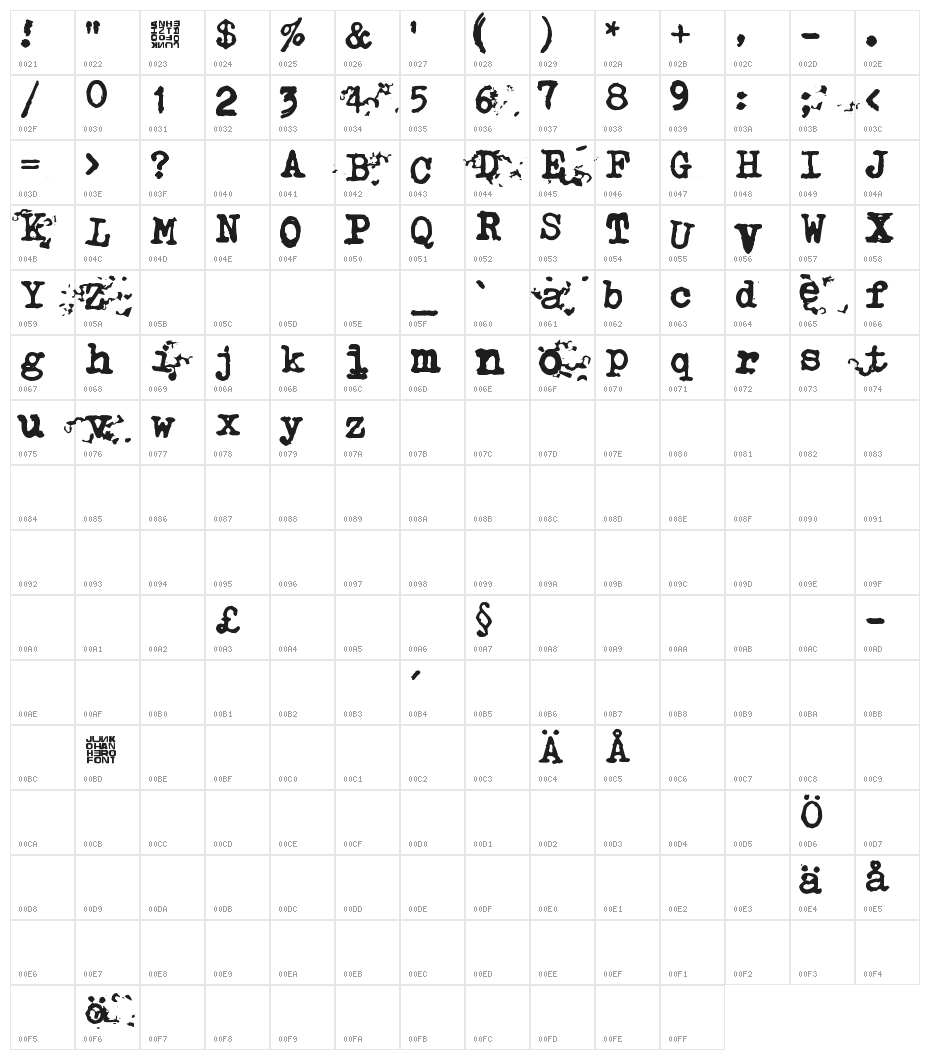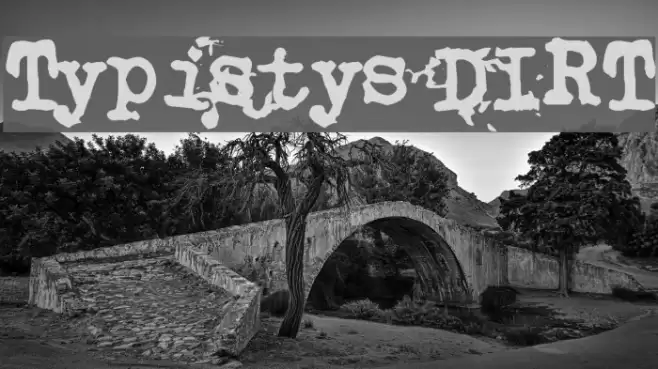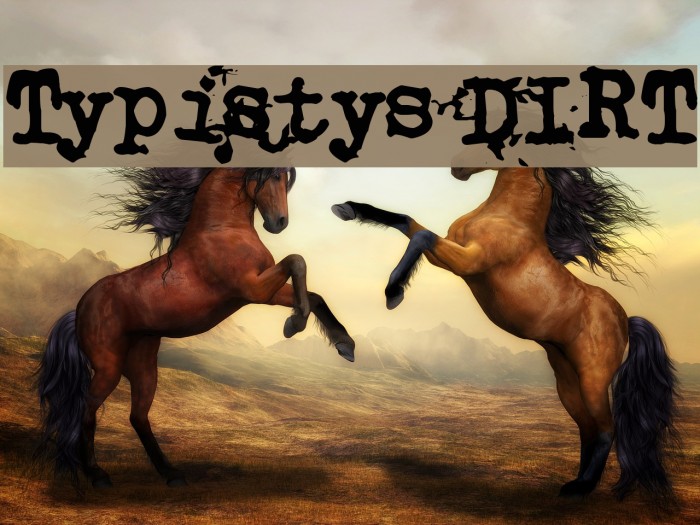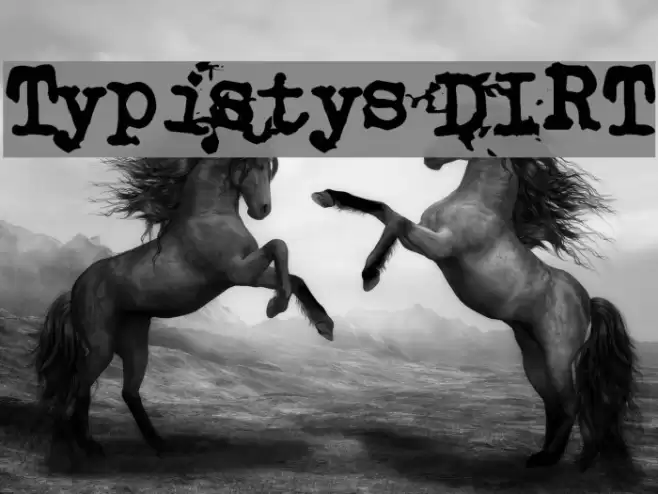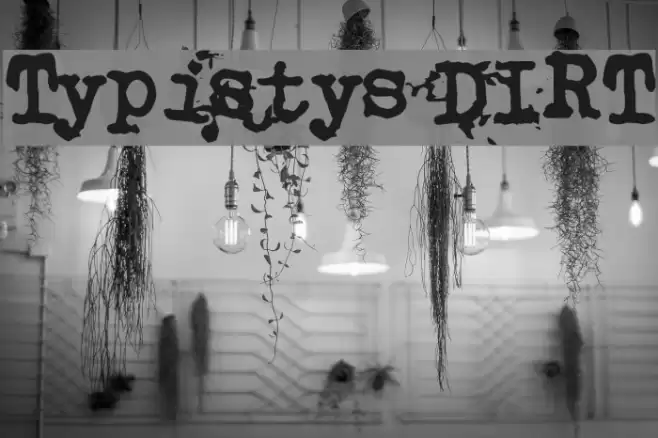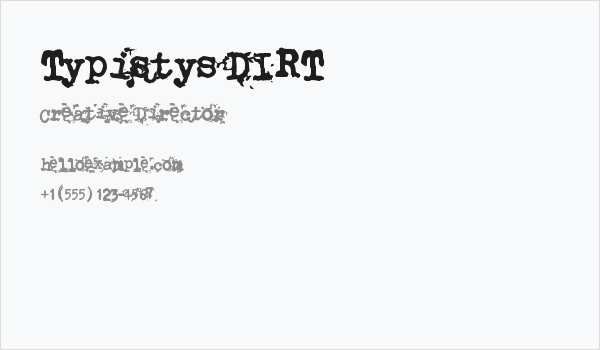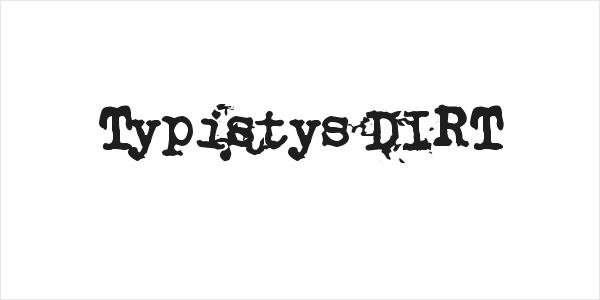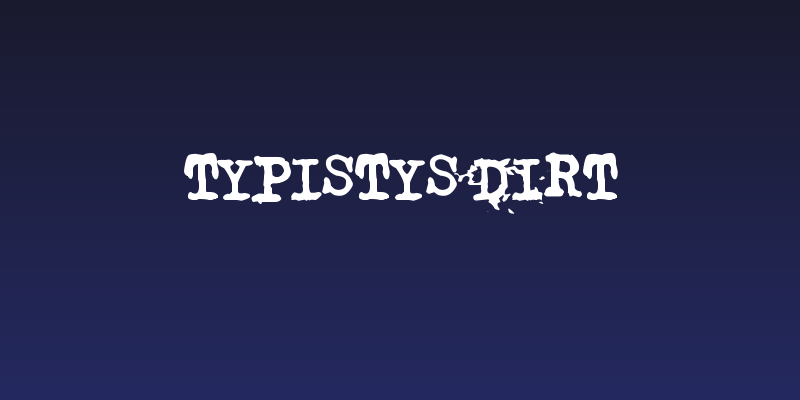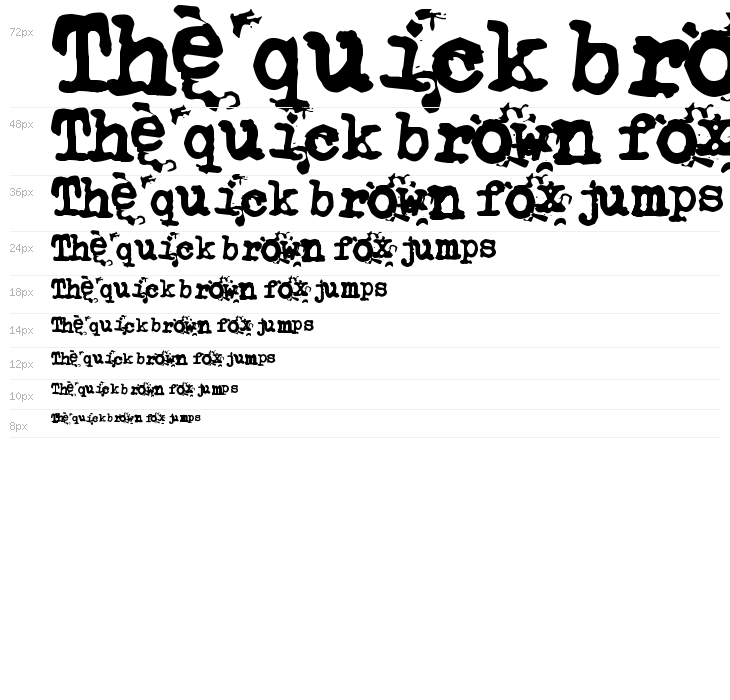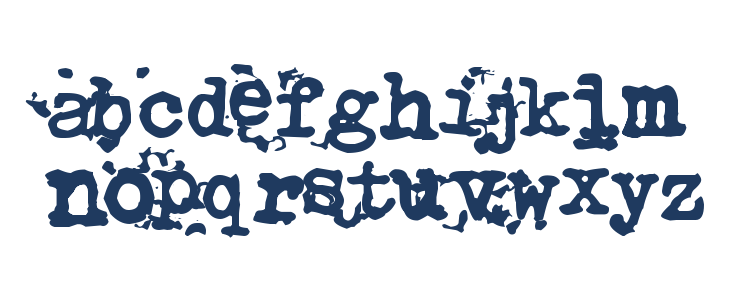
Typistys DIRT Font
Typistys DIRT Description
This font exudes a rugged and distressed aesthetic, characterized by its uneven edges and splattered ink-like appearance. The letters have a bold presence with a rough texture that suggests a vintage typewriter feel, yet with a modern twist. The uppercase and lowercase letters maintain a consistent style, while the numbers and special characters follow suit with the same distressed look. This font is ideal for projects that require a grunge or industrial vibe, offering a unique and eye-catching design element.
| Overall Style | Grunge, Industrial |
| Use Case | Headlines, Posters, Artistic projects |
| Proposed Projects | Ideal for album covers, posters, urban-themed designs, and any project needing a gritty, industrial look. |